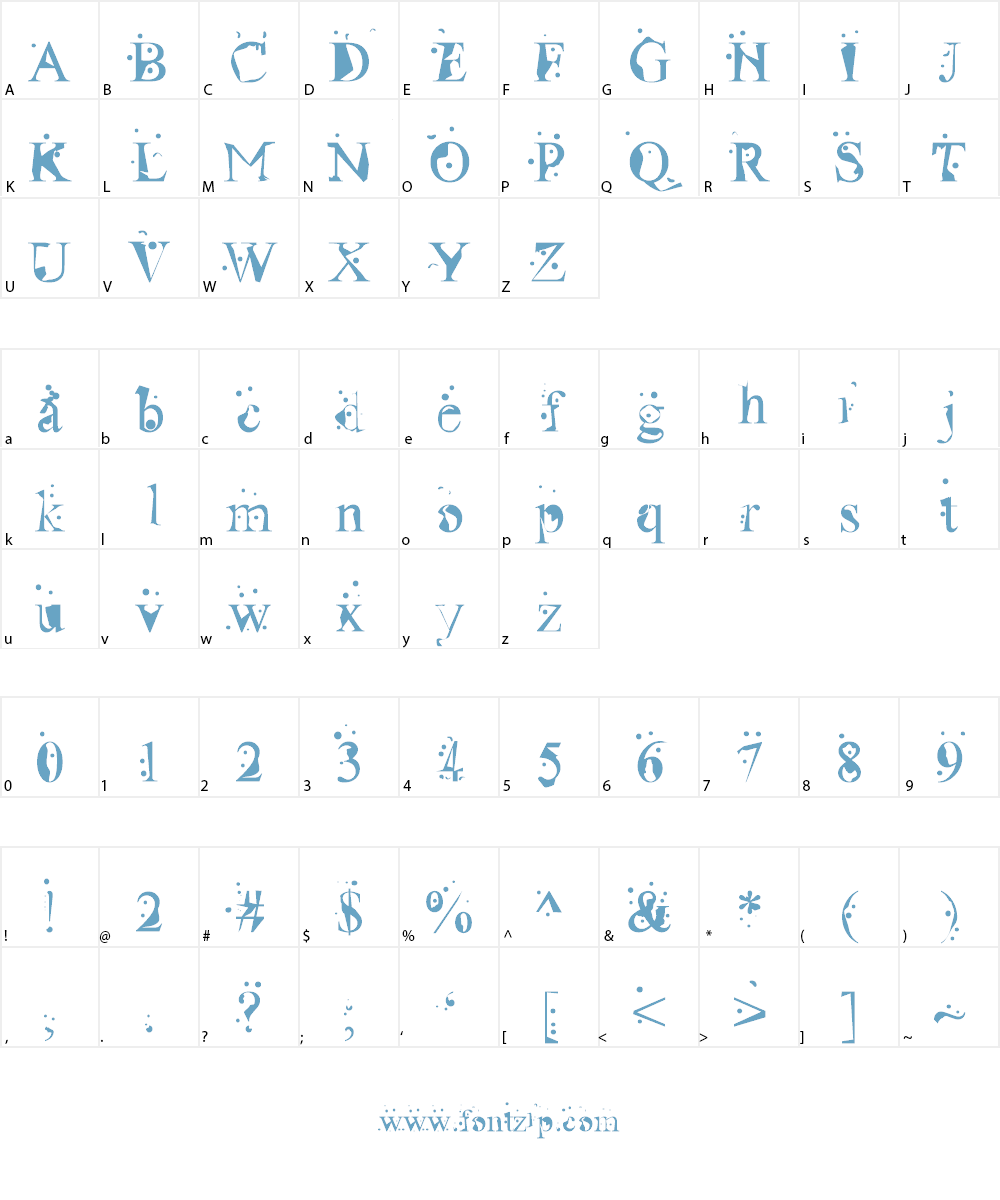
A former FontFace font of the day, and a four-bee font, and it was featured on Lockergnome. Koo's Art Cafe of Santa Ana, CA recently used the font on one of their flyers (see right: "Nemirah"). An art project culminating the work of students of a film and art school in Latvia used RR in a project titled "Latvian fonts in web." Also appears on the Funky Fonts CD from Expert Software as "Boozed." They didn't even ask. You've got my permission to send them hate email. This font is way too trendy for its own good. By Greg